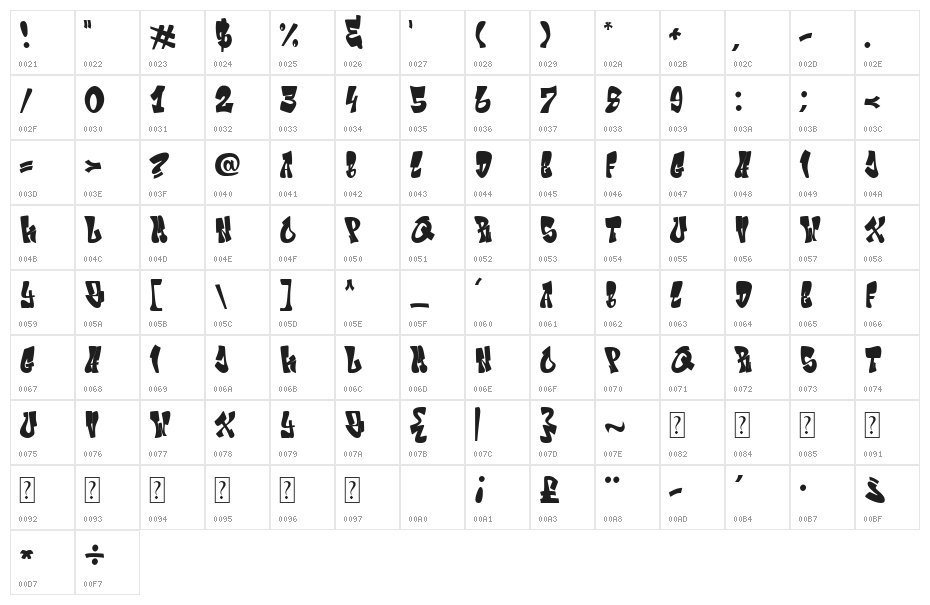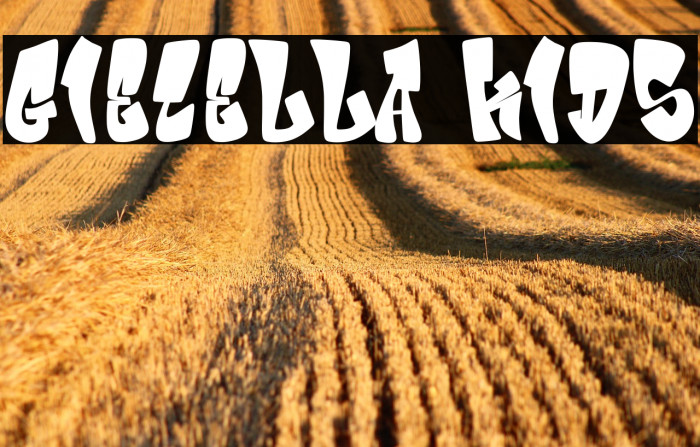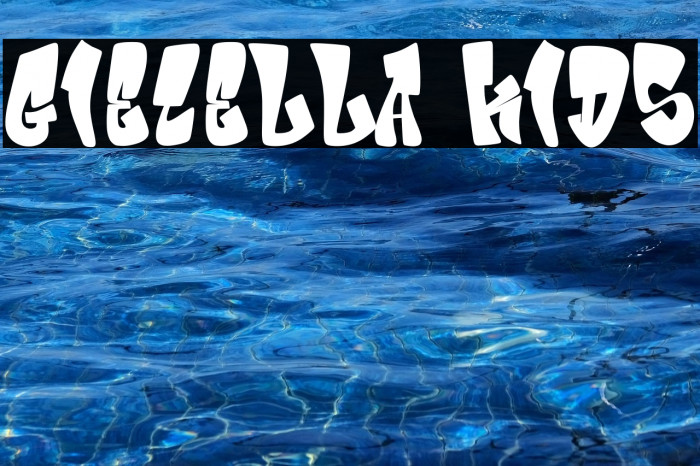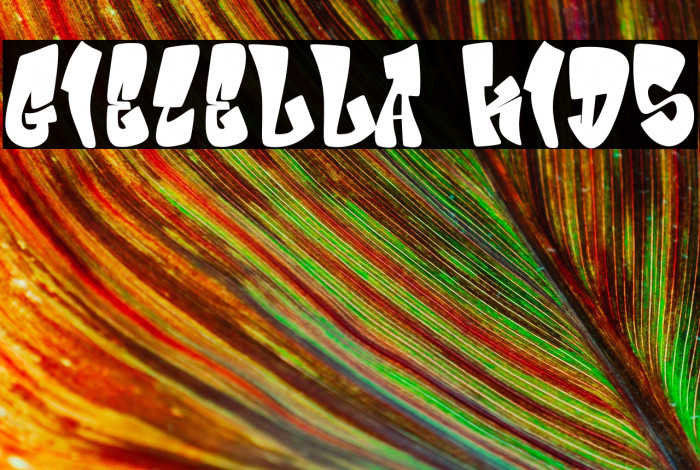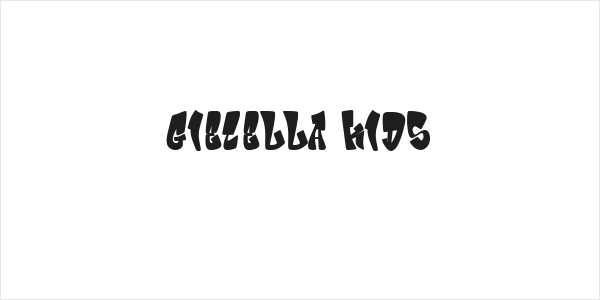
Giecella Kids Font
Giecella Kids Description
This playful and bold font features a whimsical and chunky design, perfect for capturing attention. The letters are characterized by their exaggerated curves and thick strokes, giving them a lively and energetic appearance. The font maintains a consistent weight throughout, with each character exhibiting a unique and quirky shape. The numbers and special characters follow the same playful style, making them suitable for creative and fun projects. The overall look is reminiscent of hand-drawn or cartoon-like lettering, ideal for projects aimed at children or those requiring a lighthearted touch.
| Overall Style | Playful, Cartoon-like |
| Proposed Projects | Ideal for children's books, playful posters, toy packaging, and fun branding projects. |